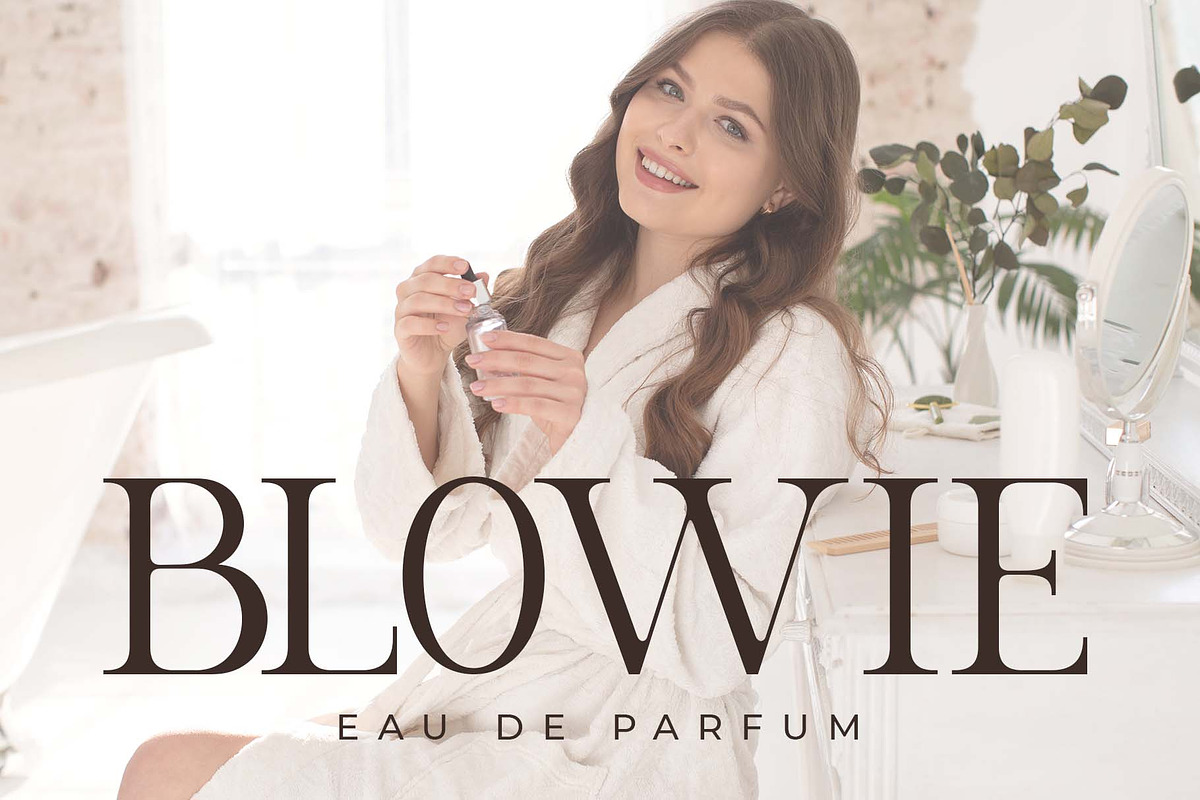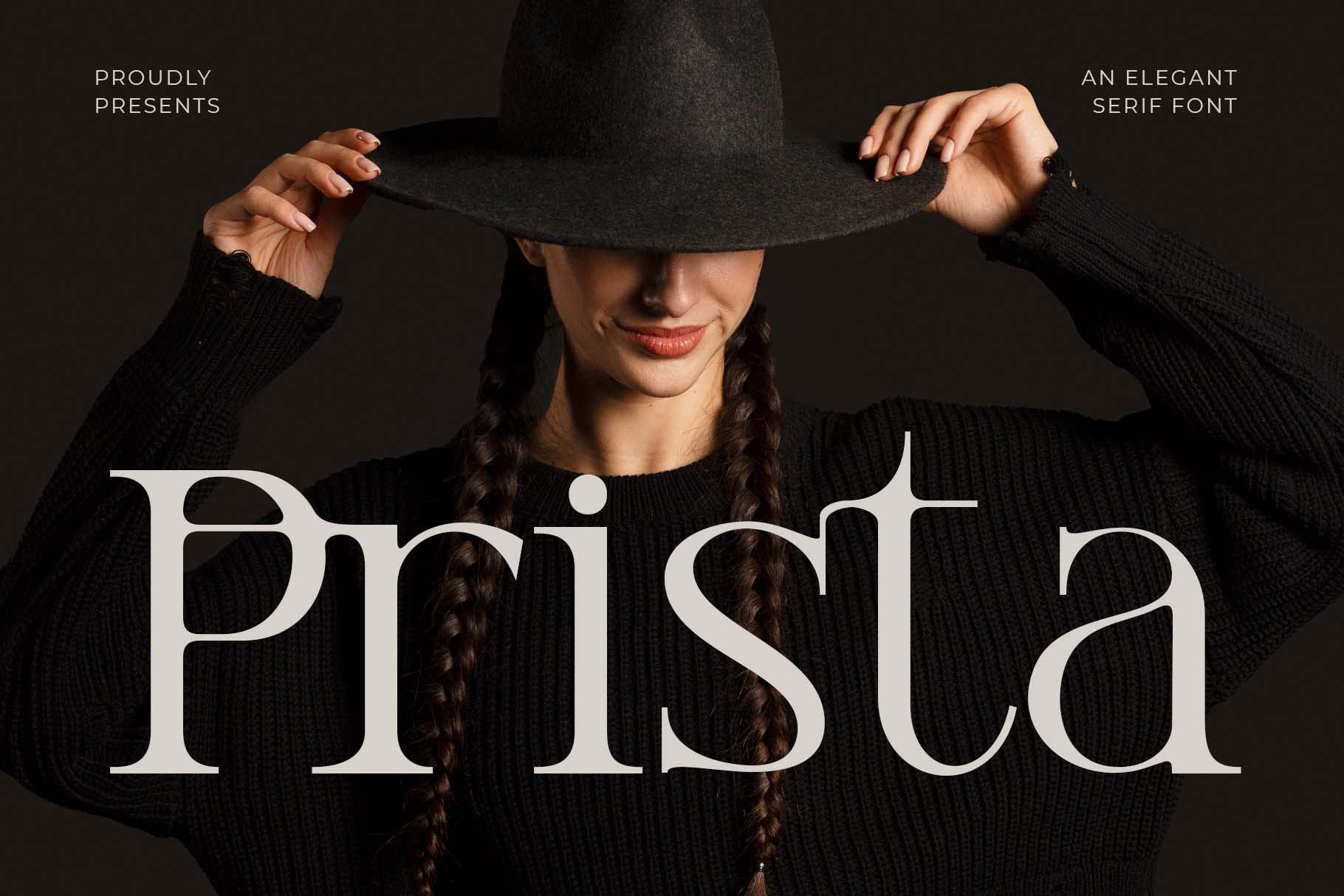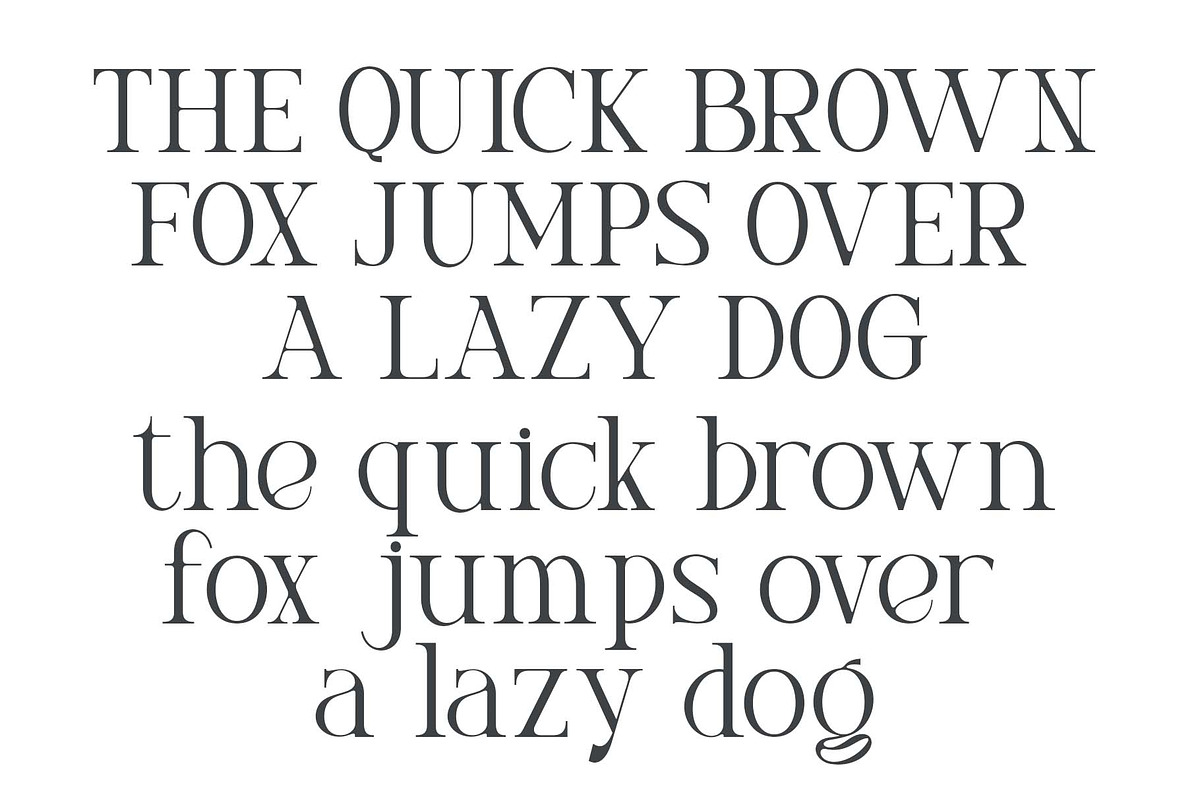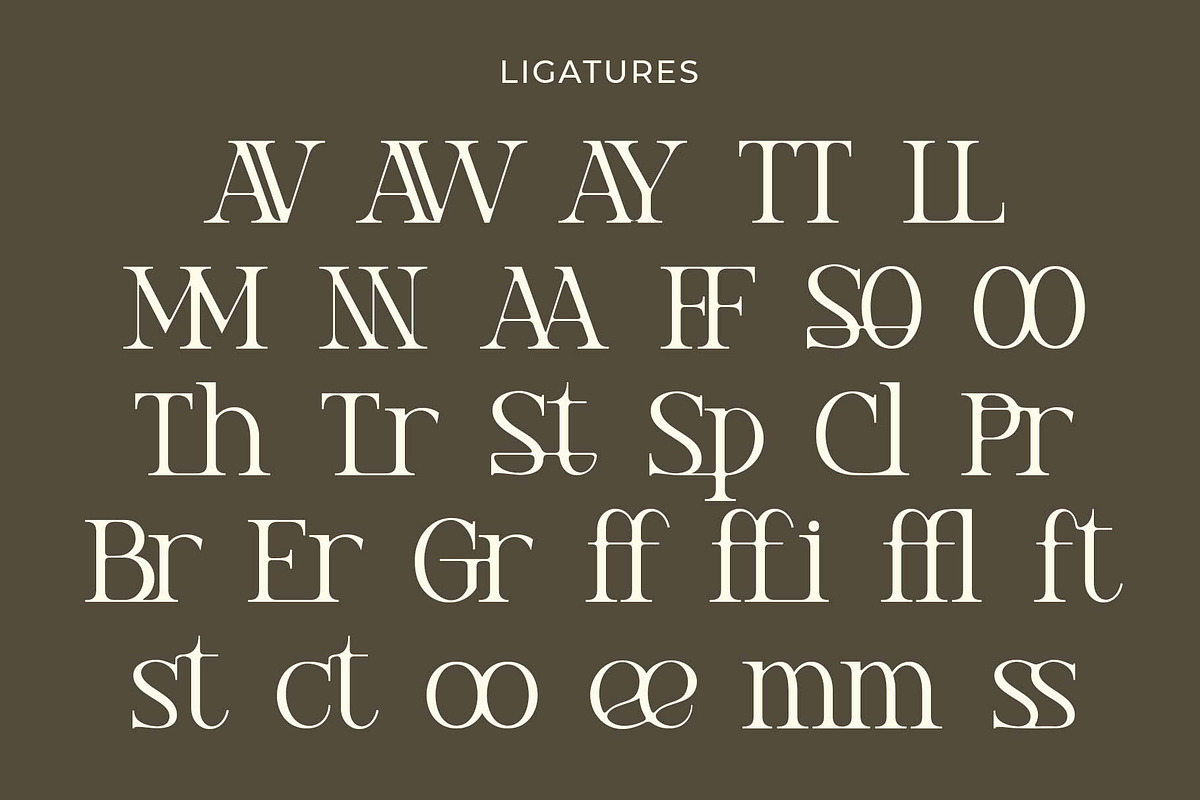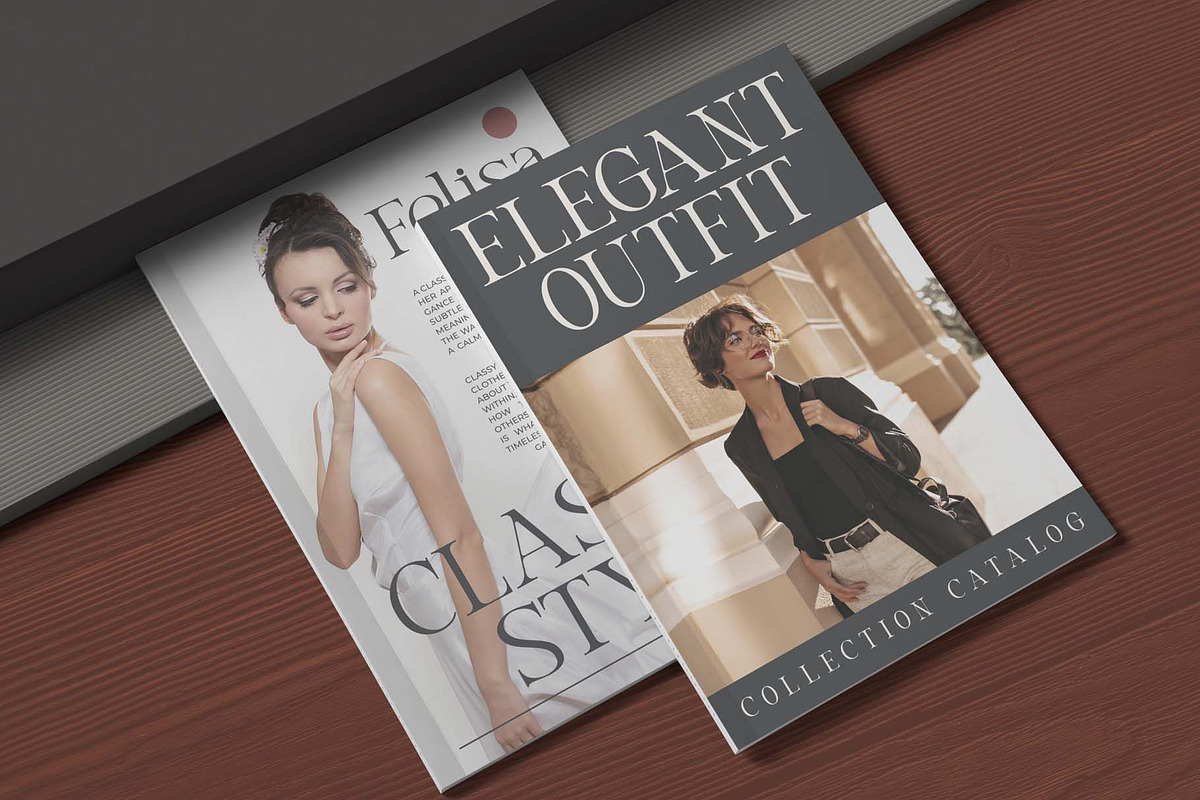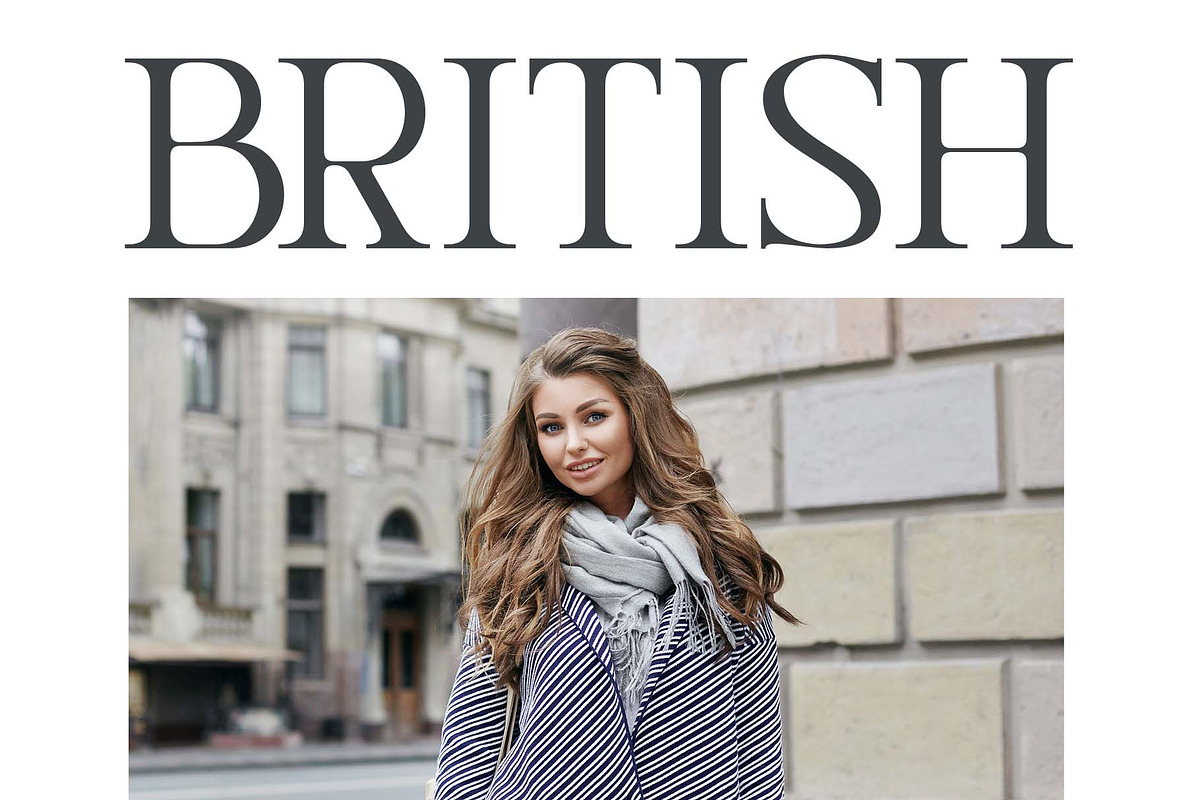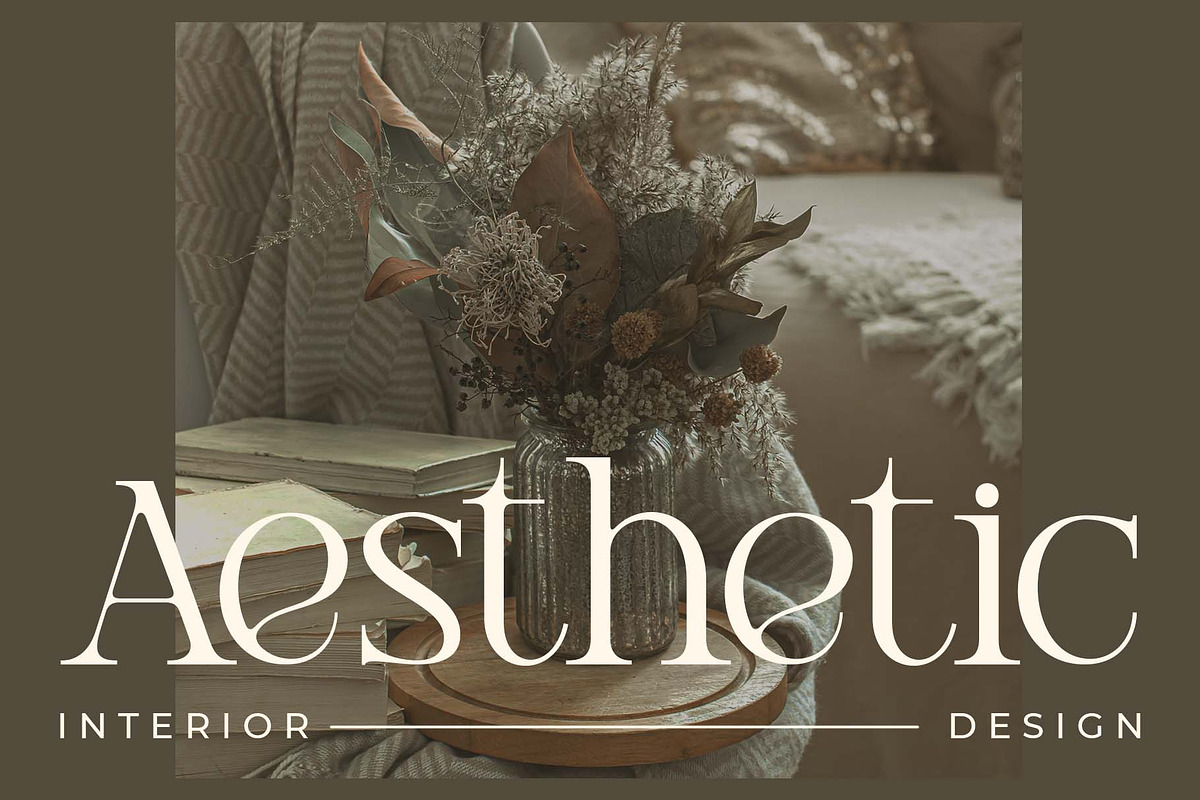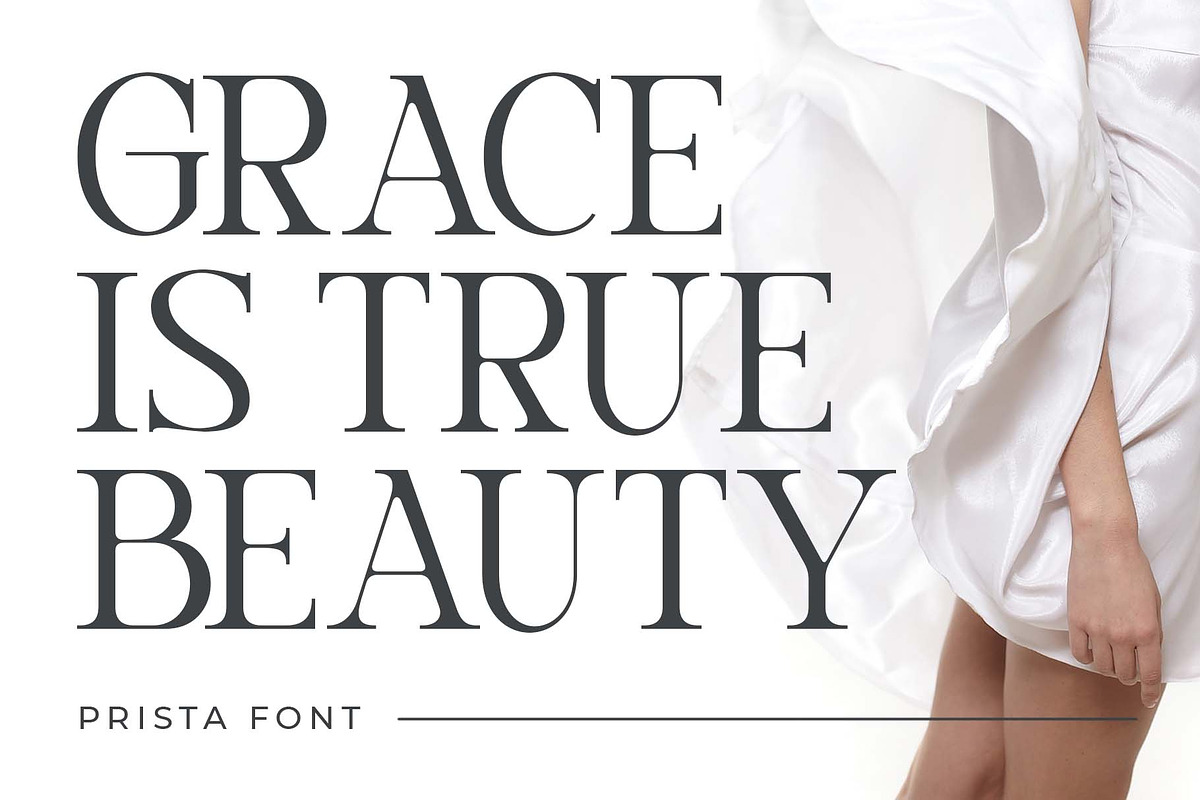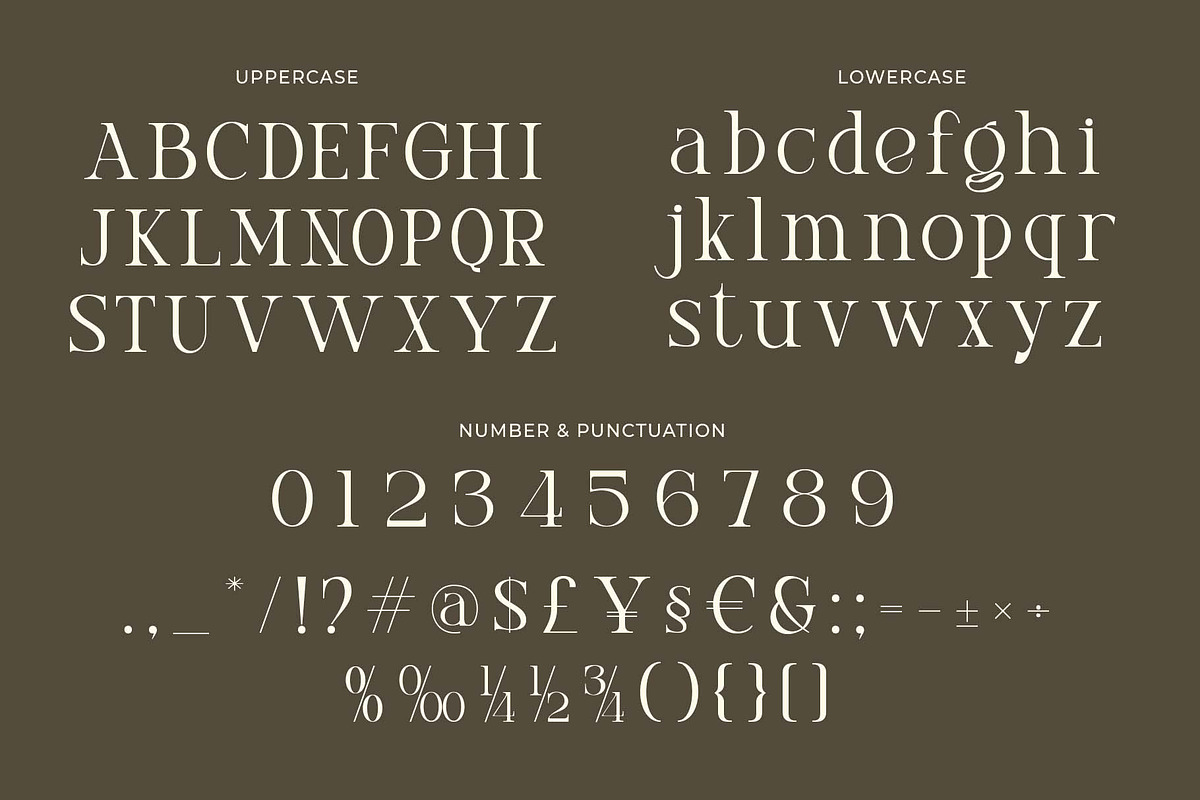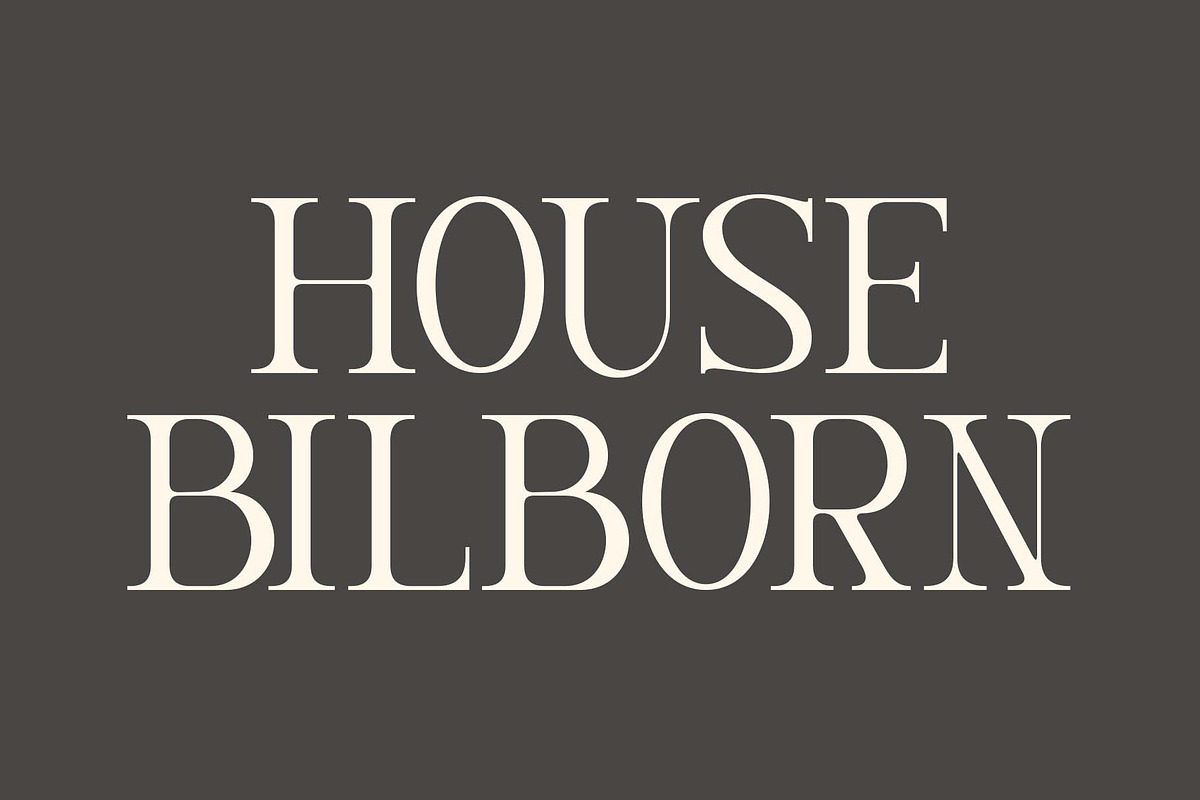
Prista an elegant serif font
Hello, awesome people! This time, we have a new font called Prista an elegant serif font Combination by Blankids Studio.
Prista an elegant serif font is made for any professional project branding, such as logotype, watermarks, poster, branding, promotions, product packaging, etc. Every letter has a elegant style design.
Prista includes a full set of elegant uppercase and lowercase letters, numerals and punctuation. This font has an elegant style. See the previews above to get some inspiration on how to use them. Happy designing!